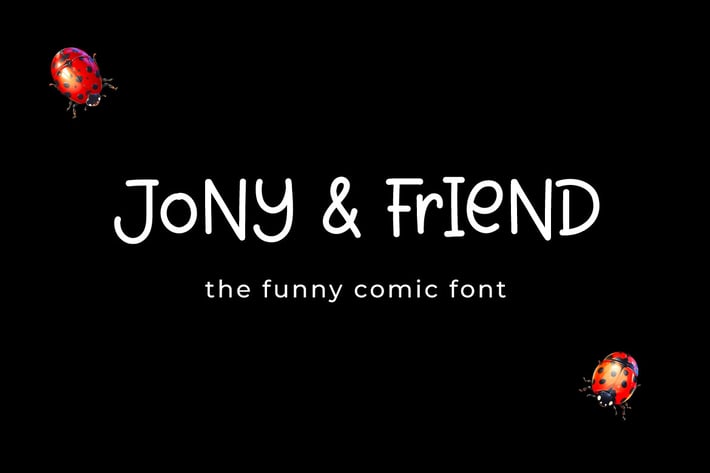
Jony and Friend - Funny Comic Font
Hello! Jony and Friend is a cute funny sansserif font.
Jony and Friend can be used in any works such as comic book, poster, school, flyer, book title, advertisement, social media content, logo and many more.